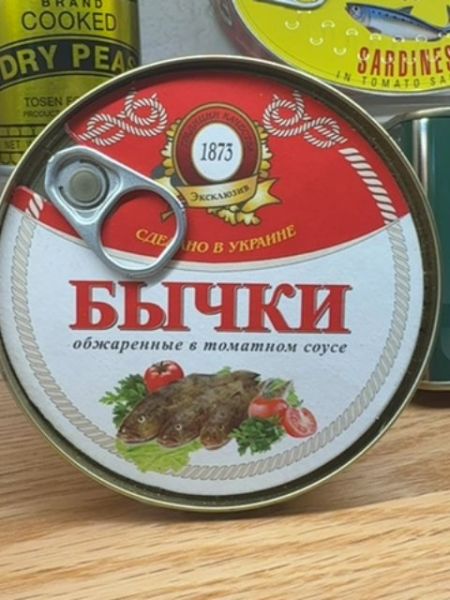
Бычки
A canned fish product consisting of fried gobies in tomato sauce.
1873
Ukraine
The typography on the package uses a bold Cyrillic font for the product name, giving it a traditional and authoritative appearance. The typeface is enhanced by ornate, decorative elements that emphasize the product's heritage. The text is primarily in red, contrasting sharply against the white background for readability.
The packaging is a round metal can with a pull-tab lid. It features a vibrant red and white design, adorned with decorative gold accents and an image of the fish product with fresh tomatoes and herbs.
- Contains fried gobies in tomato sauce.
- Features traditional Ukrainian design elements.
- The brand has been around since 1873.